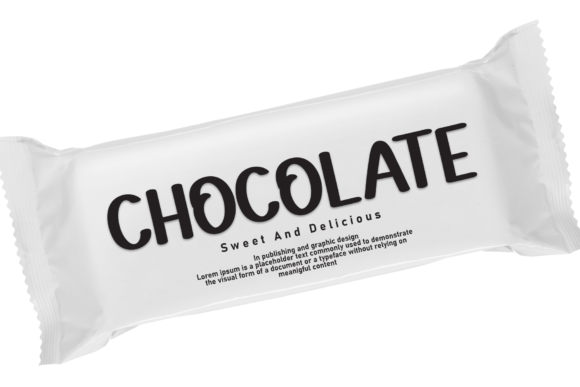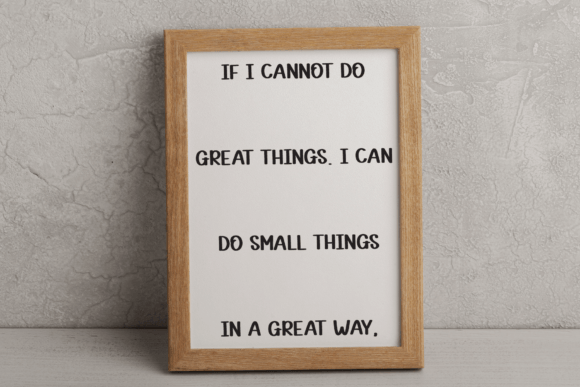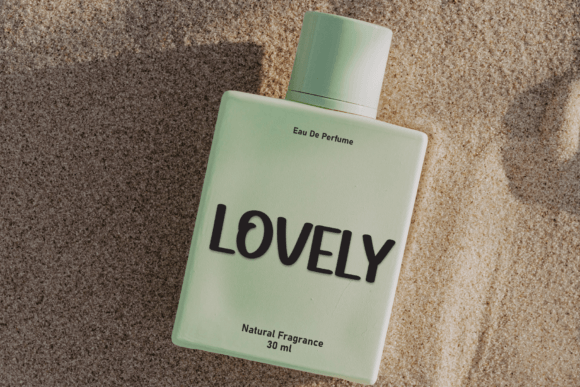
Introduction to Simple Childern Font
Simple Children is a sweet and friendly handwritten font.
Cute yet versatile, this font is ideal for writing wedding invitations, cards, or any other design that might need a lovely touch .